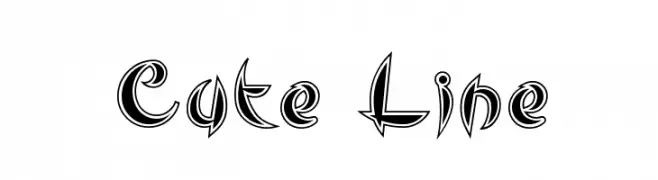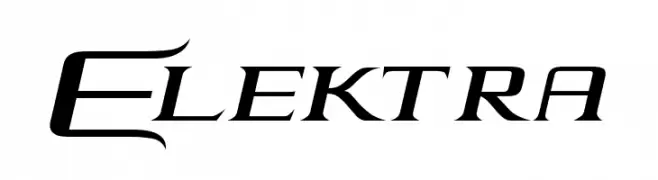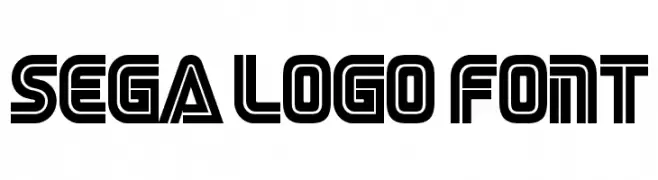
A playful, hand-drawn font with varied stroke thickness and a whimsical style.
A bold, brush script font with dynamic, flowing strokes.
A playful handwritten font with fluid, dynamic strokes and a relaxed appearance.
A modern, elegant script font with flowing, interconnected characters.
A bold, runic-style font with geometric, angular characters and moon phase symbols.
A modern, flowing font with artistic and fluid character design.
An elegant, flowing script font with smooth, continuous strokes.
A modern, clean sans-serif font with balanced stroke widths and excellent readability.
A bold, modern typeface with clean, geometric lines and consistent stroke width.
A modern, ultra-light sans-serif font with clean lines and balanced proportions.
A bold, modern sans-serif font with clean lines and strong legibility.
A modern, light sans-serif font with clean lines and excellent readability.
A bold, modern sans-serif font with clean lines and strong presence.
A modern sans-serif font with clean lines and balanced proportions.
A bold, modern sans-serif font with clean lines and excellent readability.
A bold, modern sans-serif font with a strong and assertive appearance.
A clean, modern sans-serif font with a light weight and excellent legibility.
A modern sans-serif font with clean lines and excellent readability.
An elegant italic font with a modern yet classic style.
A playful, bubble-like font with bold, rounded characters.
Bold, geometric font with rounded corners and uniform thickness.
A futuristic, geometric font with elongated, narrow characters and a sleek design.
A bold, decorative font with circular embellishments and a modern, playful style.
A bold, vintage-style serif font with high contrast and dramatic serifs.
A festive, decorative font styled as Christmas lights, perfect for holiday themes.
A festive, hand-drawn font styled like Christmas light bulbs.
A bold, decorative font with geometric patterns inside each character.
A bold, distressed font with a marbled texture for a rugged look.
A playful, handwritten font with irregular strokes and a casual vibe.
A bold, futuristic font with rounded edges and a playful design.